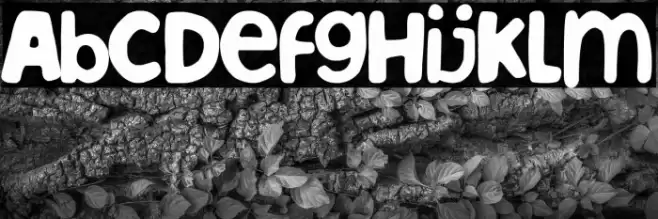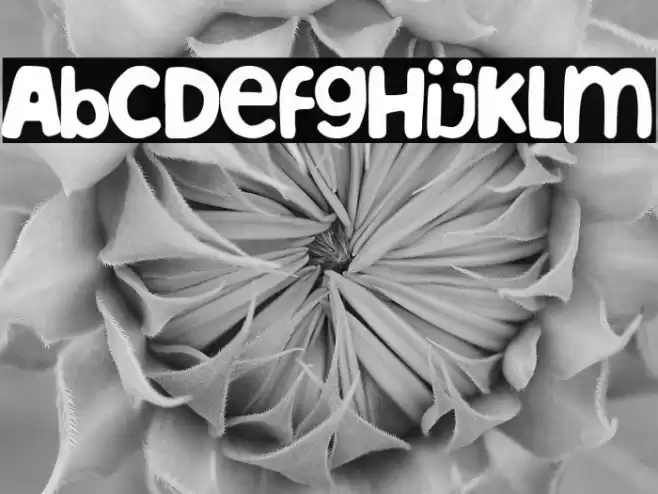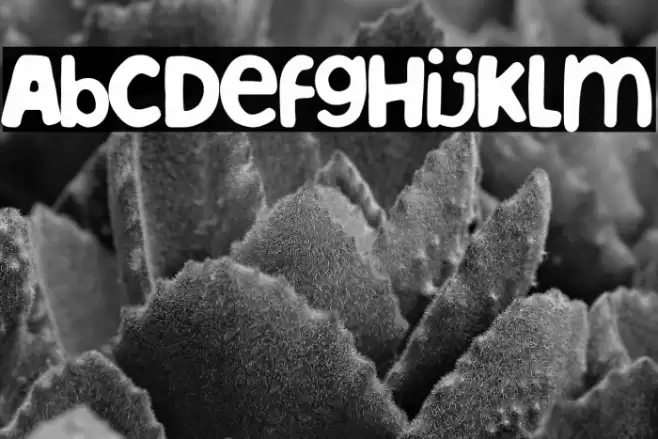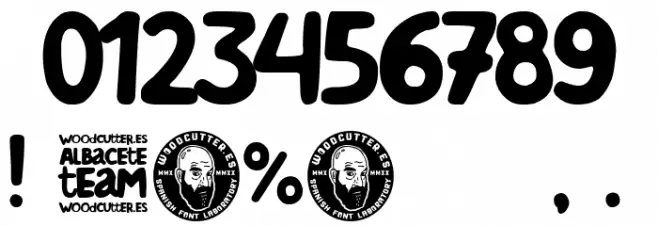
Albacete team Font
Albacete team Description
This font features a bold and playful design with rounded edges and a bubbly appearance. The characters are thick and have a consistent stroke width, giving them a strong presence. The uppercase and lowercase letters maintain a uniform style, with a slight whimsical touch that adds a sense of fun and creativity. The numbers and special characters follow the same design ethos, ensuring a cohesive look across all elements. The font's overall style is casual and friendly, making it suitable for projects that aim to convey a lighthearted and approachable tone.
- Font: Albacete team
- Overall Style: Playful